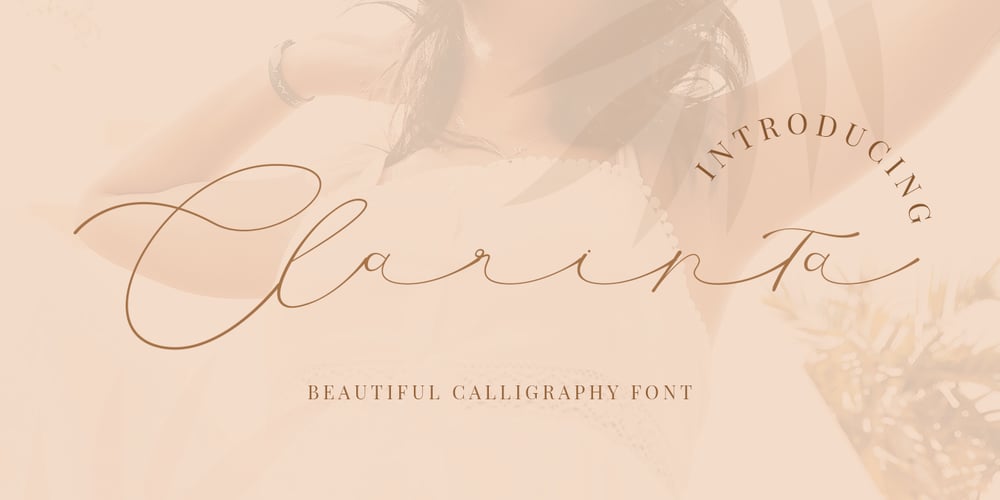
Clarinta Font Family was designed by Putra Novembria Candra Kusuma and published by Putracetol. Clarinta contains 1 styles and family package options. Clarinta, a beautiful script font. a lovely, elegant and sweet script font. Clarinta is perfect for styling logos, stationery, wedding event, invitation, quote, social media, websites and so much more! Come with Opentype feature with a lot of alternates, its help you to make great lettering.This font is also support multi language.